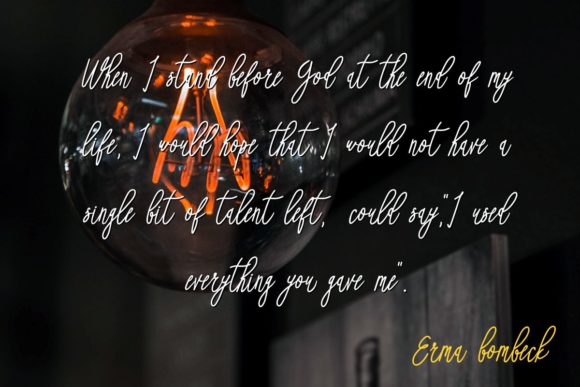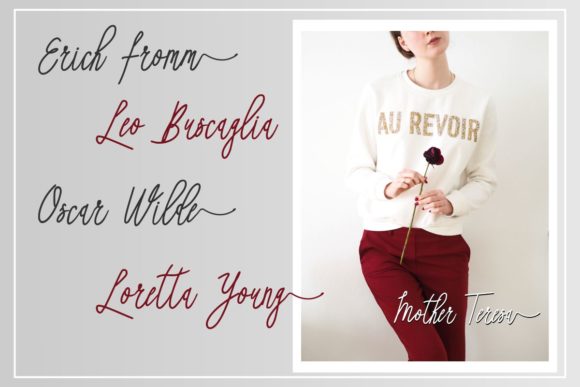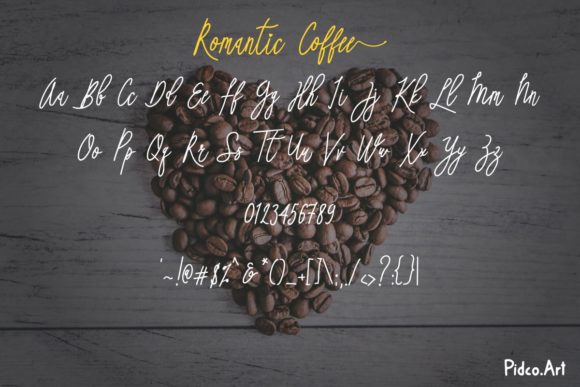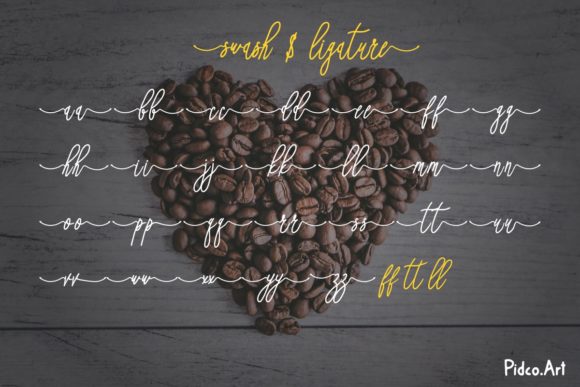
Introduction to Romantic Coffee Font
As a designer, have you ever found yourself stuck in a creative rut, searching for the perfect font to elevate your project? I’m sure we’ve all been there. For me, it was a particularly late-night design session when I stumbled upon the Romantic Coffee Font. Its elegant, handwritten style instantly captured my attention, and I knew I had to learn more. With its cute alternates and swashes, this font is a game-changer for any design project.
Whether you’re working on a free download, a logo design, or a creative project with a transparent background, the Romantic Coffee Font is a valuable resource that can take your designs to the next level. Its high-quality design makes it an ideal choice for designers who crave a unique and elegant look. In this article, we’ll delve into the world of the Romantic Coffee Font and explore its many uses and benefits.
Key Features of Romantic Coffee Font
- Unique, hand-drawn design with a romantic and vintage feel, perfect for creative projects and design resources.
- High-quality font with a transparent background, allowing for easy customization and seamless integration into any design.
- Features a large character set, including uppercase and lowercase letters, numbers, and special characters, making it suitable for a wide range of design applications.
- Designed with a high resolution of 300 DPI, ensuring crisp and clear text even at larger sizes.
- Perfect for use in invitations, greeting cards, wedding designs, and other creative projects that require a touch of romance and elegance.
Honest Review: Romantic Coffee Font
I recently stumbled upon the Romantic Coffee Font and was excited to give it a try. As a designer, I’m always on the lookout for high-quality fonts that can elevate my creative projects. In this review, I’ll share my honest thoughts on this font and what it can offer.
- The Romantic Coffee Font is a beautiful, cursive script that’s perfect for titles, headings, and body text.
- The font is highly customizable, allowing you to adjust the size, color, and spacing to suit your design needs.
- The font features a transparent background, making it easy to use on any background or design element.
While the Romantic Coffee Font is a great addition to any design library, I did encounter some limitations. The font is not as versatile as some other fonts I’ve used, and it may not be suitable for bold or sans-serif designs.
Overall, I’m impressed with the Romantic Coffee Font and would highly recommend it to designers looking for a high-quality, creative font for their next project.
Romantic Coffee Font
The Romantic Coffee Font is a beautiful, free download design resource perfect for creative projects. Its high-quality, transparent background makes it ideal for use in various digital design platforms.
For the best results, use the Romantic Coffee Font in conjunction with high-quality images and a clear, simple design.
The Romantic Coffee Font is perfect for:
- Coffee shop branding and marketing materials.
- Food and beverage product labels.
Love Story Font is a high-quality, cursive script font ideal for creative projects, especially those with a romantic theme. It features a transparent background, making it perfect for overlaying on images or using as a design resource. When to use: Wedding invitations, love quotes, and other romantic designs.
Love Story Font is a great alternative to Romantic Coffee Font as it offers a more elegant and sophisticated look, making it suitable for high-end designs.
2. Café Script Font
Café Script Font is a charming, handwritten font that evokes the feeling of a cozy coffee shop. It’s available for free download and features a high-quality design that’s perfect for design projects. When to use: Coffee shop logos, menu boards, and other food-related designs.
Can I use the Romantic Coffee Font with a transparent background, and are the fonts available in different color variations?
Yes, the Romantic Coffee Font is available in different color variations, including solid colors and gradient effects. Additionally, the font can be used with a transparent background, making it suitable for use in creative projects that require a high level of design flexibility.